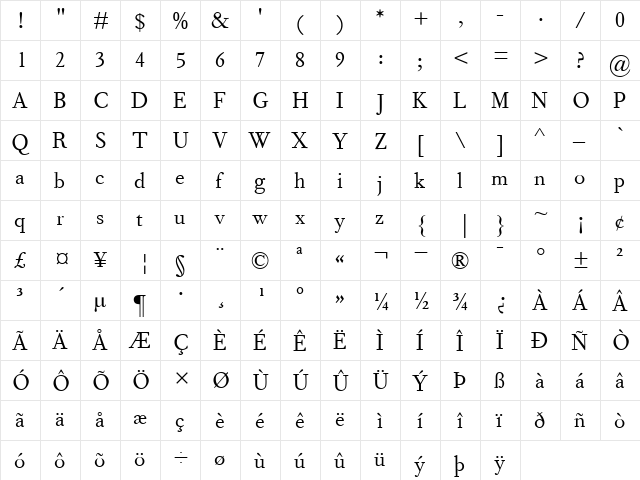
FournierMTTallCaps Roman Font Preview
FournierMTTallCaps Roman
Design Context for FournierMTTallCaps Typeface
FournierMTTallCaps is a composed and adaptable typeface that performs quietly and consistently across a wide range of design contexts.